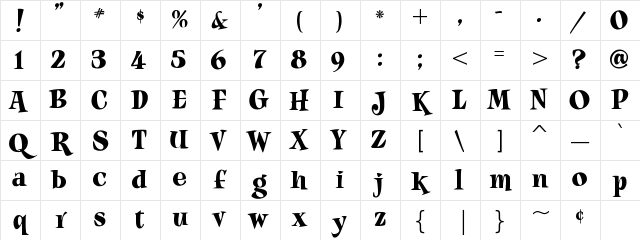
Complete A&S Jiggy Roman Regular glyph index. Displaying only characters natively supported by A&S Jiggy Roman Regular font.
A&S Jiggy Roman is a composed and adaptable typeface that performs quietly and consistently across a wide range of design contexts.